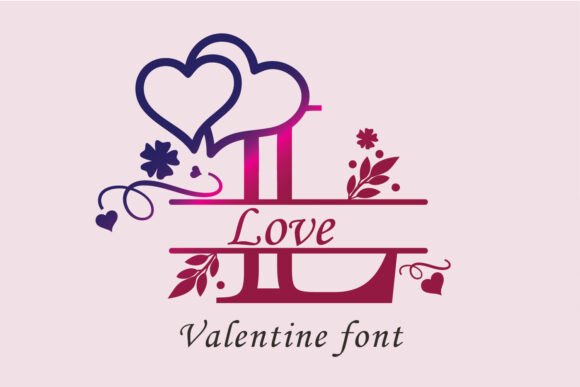
Love Valentine Monogram Font: The Perfect Addition to Your Valentine’s Day Designs
Valentine’s Day is just around the corner, and with it comes the need for beautiful and unique designs that capture the essence of love and affection. Whether you’re a designer, a small business owner, or simply someone who loves to create, having the right font can make all the difference in creating stunning Valentine’s Day-themed designs. This is where the Love Valentine Monogram Font comes in – a unique and adorable Valentine’s font that is sure to make your designs stand out.
What is Love Valentine Monogram Font?
Love Valentine Monogram Font is a distinctive and charming font designed specifically for Valentine’s Day. What sets it apart is its unique feature: every character in this font has heartbeats and beautiful monogram lettering. This means that each letter, from A to Z, and every symbol and number, is designed with a loving touch, incorporating heartbeats into their design. This font is not just a collection of letters and symbols; it’s an expression of love and affection that can add a personal touch to any design.
How Can You Use Love Valentine Monogram Font?
The versatility of Love Valentine Monogram Font is one of its most appealing features. This font can be used in a variety of projects, including:
- Valentine’s Cards: Create personalized and unique Valentine’s cards that will surely impress your loved ones.
- T-shirts and Merchandise: Design custom t-shirts, hoodies, and other merchandise that make perfect gifts for Valentine’s Day.
- Invitations: Whether it’s a Valentine’s Day party or a romantic dinner, design beautiful and inviting invitations that set the tone for the event.
- Book Covers: For authors and publishers, this font can add a romantic touch to book covers, especially for romance novels or children’s books about love.
- Posters and Flyers: Create eye-catching posters and flyers for Valentine’s Day promotions, events, or campaigns.
Benefits of Using Love Valentine Monogram Font
Using Love Valentine Monogram Font in your designs comes with several benefits:
- Uniqueness: Stand out from the crowd with a font that is specifically designed for Valentine’s Day and has a unique monogram style.
- Emotional Connection: The heartbeats and monogram lettering in the font help create an emotional connection with your audience, making your designs more relatable and endearing.
- Versatility: The font’s versatility means you can use it in a wide range of projects, from digital designs to print materials.
- Easy to Use: Despite its unique design, Love Valentine Monogram Font is easy to use and can be integrated into most design software.
Tips for Using Love Valentine Monogram Font
To get the most out of Love Valentine Monogram Font, consider the following tips:
- Pair it with Complementary Fonts: While the Love Valentine Monogram Font is beautiful on its own, pairing it with complementary fonts can enhance your design. Choose fonts that are simple and elegant to balance out the monogram style.
- Use it Sparingly: Given its unique design, it’s best to use Love Valentine Monogram Font sparingly in your projects. Use it for headings, titles, or key messages to draw attention.
- Experiment with Colors: The font looks great in traditional Valentine’s colors like red, pink, and white, but don’t be afraid to experiment with other colors that match your brand or design theme.
- Consider Your Audience: While the font is perfect for Valentine’s Day, consider your audience and the context of your design. Ensure that the font aligns with your brand’s tone and the message you want to convey.
Love Valentine Monogram Font is a unique and adorable addition to any Valentine’s Day design. Its distinctive monogram lettering and heartbeat details make it a standout font that can add a personal touch to your projects. Whether you’re creating Valentine’s cards, t-shirts, invitations, or any other design, this font is sure to make your work more engaging and endearing. With its versatility, ease of use, and emotional appeal, Love Valentine Monogram Font is an excellent choice for designers and creators looking to make their Valentine’s Day designs truly special.
Final Thoughts
In the world of design, fonts play a crucial role in conveying messages and emotions. Love Valentine Monogram Font is more than just a collection of letters and symbols; it’s a way to express love and affection in your designs. As Valentine’s Day approaches, incorporate this beautiful font into your projects and watch your designs capture the hearts of your audience. Whether you’re a seasoned designer or a DIY enthusiast, Love Valentine Monogram Font is a valuable tool that can elevate your Valentine’s Day designs to new heights.